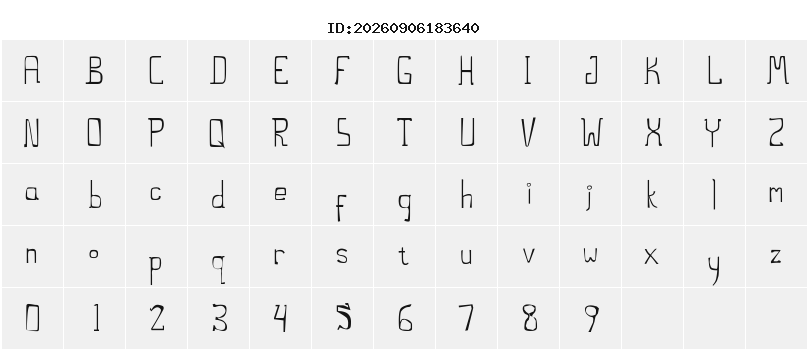
THE STILTS Preview
• Font Name: THE STILTS
• Full Font Name: THE STILTS
• Designer: High-Logic - Erwin Denissen
About THE STILTS.ttf
THE STILTS.ttf is a modern, elegant sans-serif font designed for ultimate readability and visual harmony. Perfect for branding, headlines, web design, and print materials.